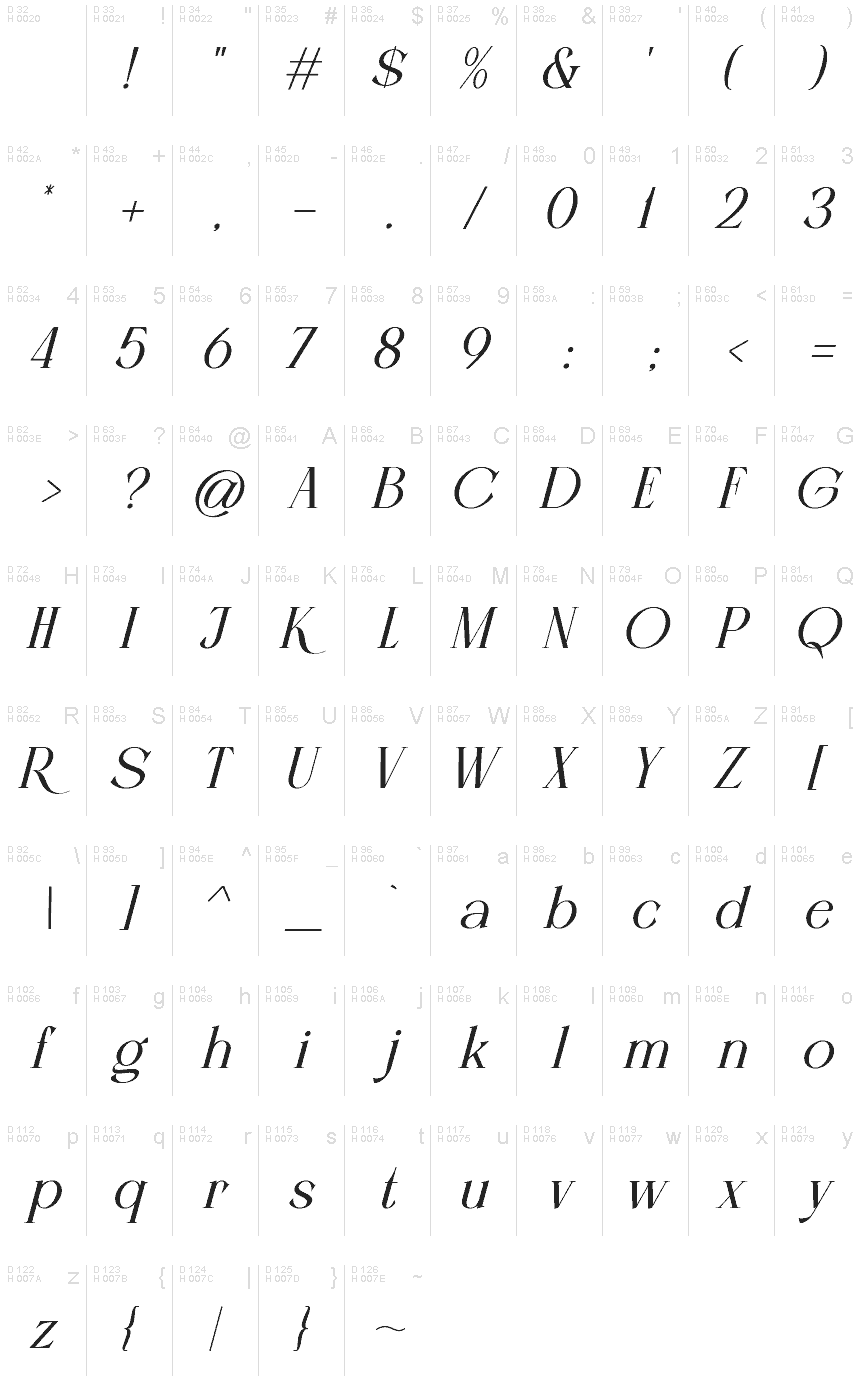
Monrovia-Slant Regular
Monrovia Slant font by Hermansyah Getstudio is a free serif font that hypnotizes audiences in each glance. It is elegant and sophisticated, showcasing relentless refinement in every letter and curve to produce classic creations. While this capsule variation leans towards the right, its classic appeal is timeless, with letters that display delicate bodies for more magical outcomes.
Use Monrovia Slant for fashion magazines related to beauty tips or makeup, or add it to posters and ads where this info will be presented. Work on branding designs that exude sophistication whenever they present themselves on stationery sets or tote bags, and always deliver professional projects with headlines and typography.